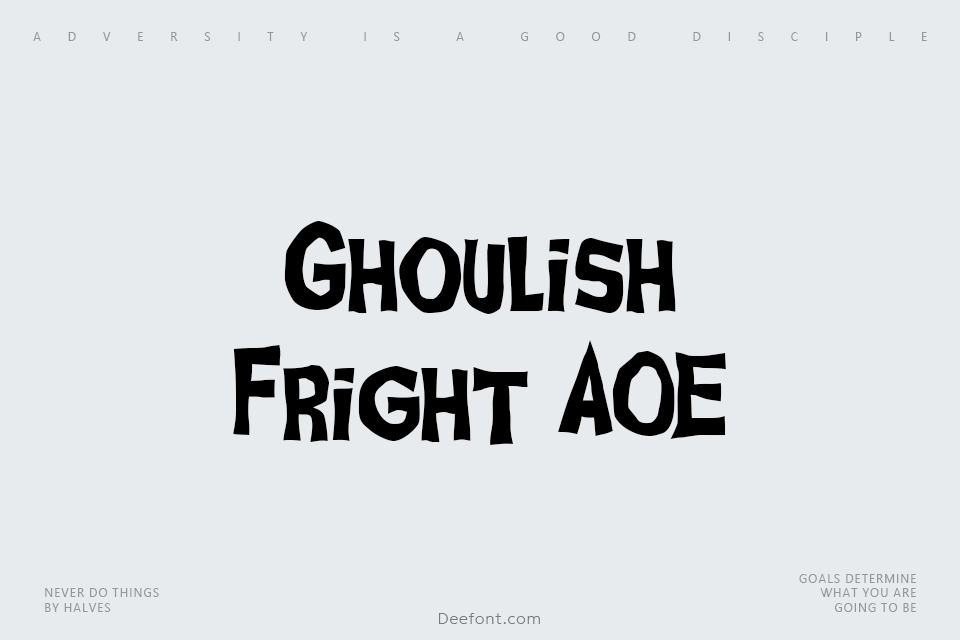
Ghoulish Fright AOE Font
Ghoulish Fright AOE is a spooky and playful decorative font featuring jagged, irregular letterforms that evoke mystery and fun. Designed by the Astigmatic One Eye Typographic Institute, this display typeface is characterized by exaggerated angles and hand-drawn appearance, making it perfect for Halloween-themed projects, horror movie titles, event flyers, and any design requiring an eerie, eye-catching aesthetic.